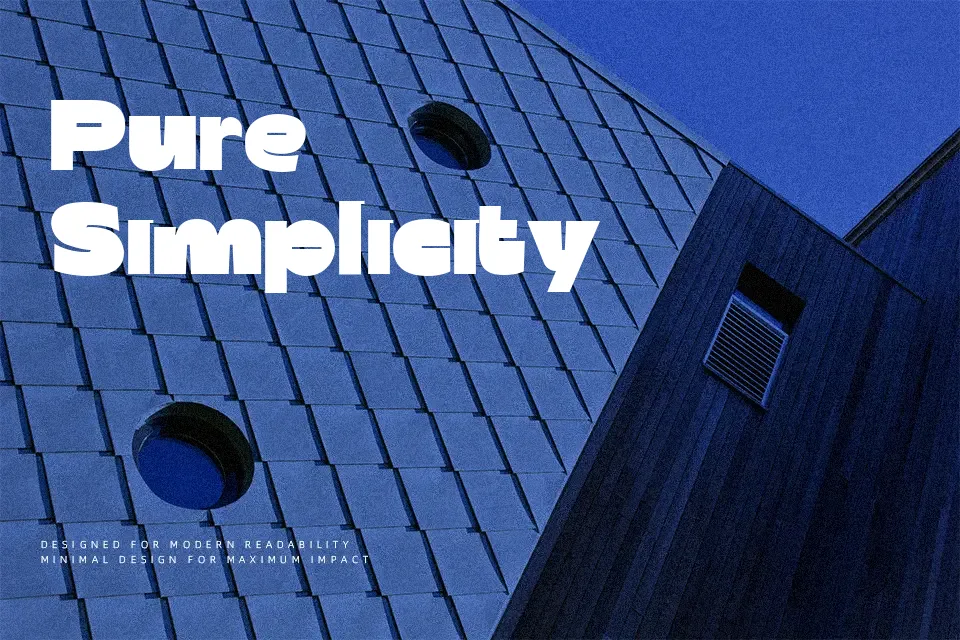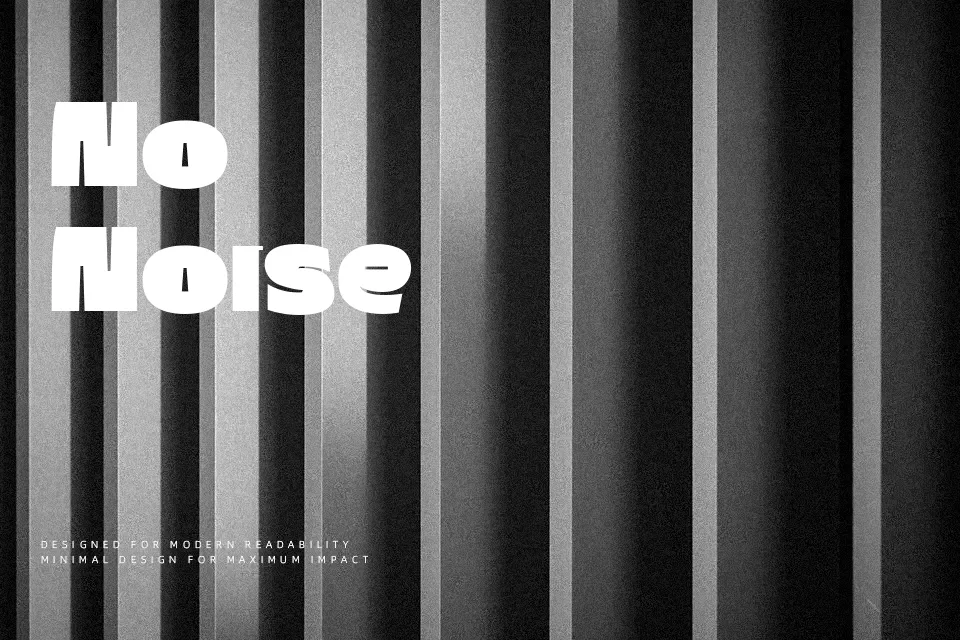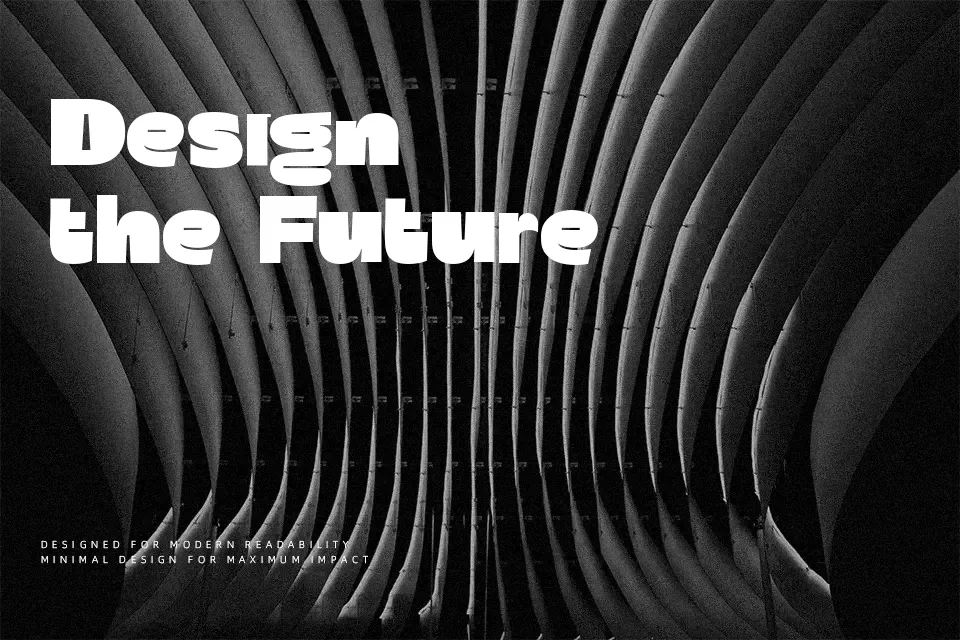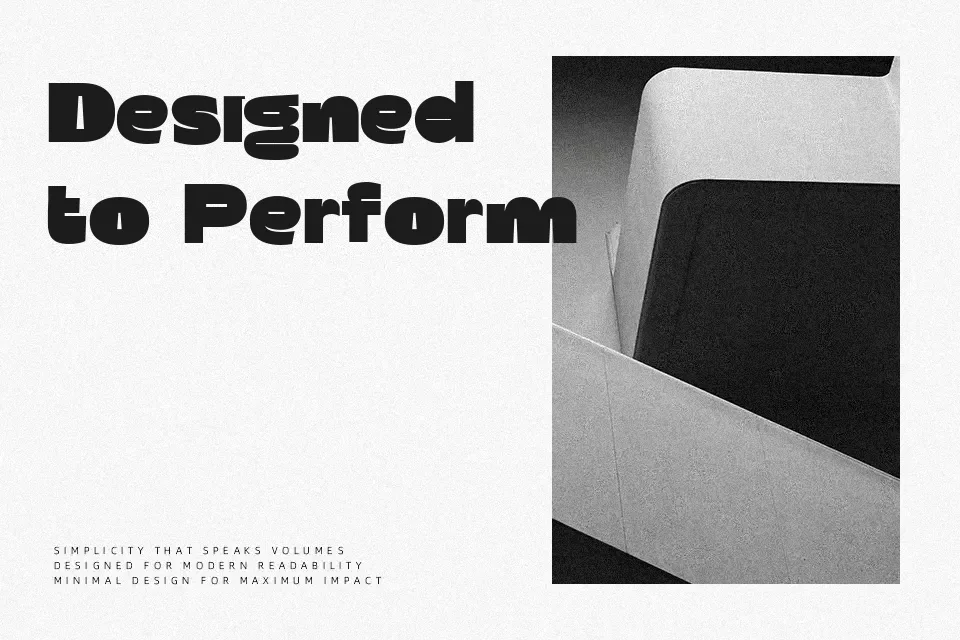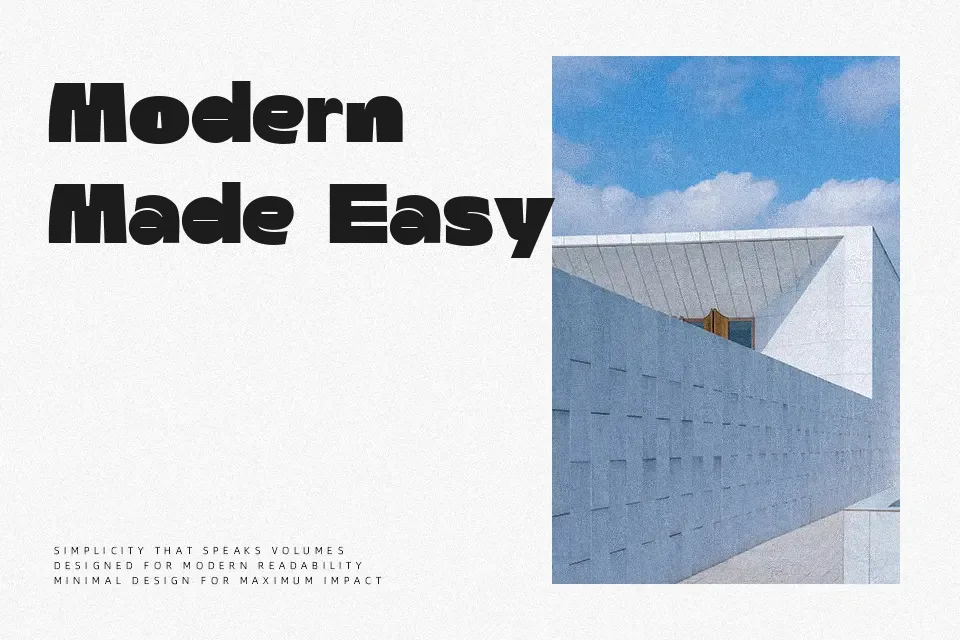
Balsamosca Font
Balsamosca combines thick, confident strokes with angular corners and a tightly controlled geometric structure to create a distinctly modern display look. Its spacing feels compact but not cramped, so letters lock together in strong, blocky word shapes that read clearly at larger sizes. The tone leans bold, edgy, and contemporary, making it a solid option for posters, album artwork, sports branding, or any headline where you want a clean sans serif with a harder edge. It struggles in long paragraphs or tiny UI text, where the sharp forms and display proportions become visually tiring. Use it when you need impact in titles, not when subtle readability over many lines is the priority.
bold poster headlines
music or esports branding logos
social media announcement graphics
short, impactful website hero titles
long body paragraphs
tiny UI labels or captions
dense editorial layouts with heavy text
Perfect for advertising, branding, and headline, with a artistic and display style.